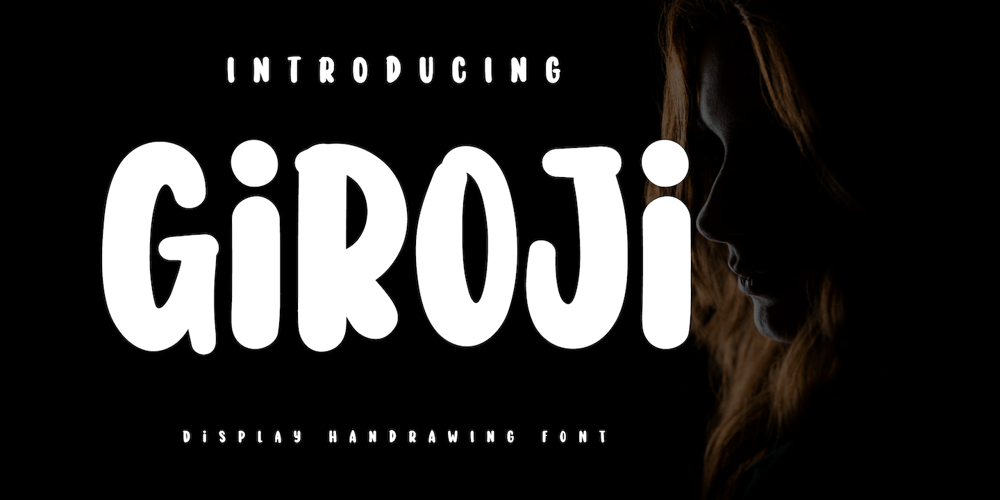
Giroji Font Family was designed by Rozikan and published by Twinletter. Giroji contains 1 styles and family package options. Introducing our newest font called Giroji, this font is designed with a bold, strong, and unique handwriting theme, so that when used it can create a relaxed, elegant and charming impression when applied to your design project so that it can give the viewer a distinctive impression.Start using this font to create an ideal and balanced design for each of your projects.In addition, this font is designed with a natural handwritten touch that is refined to create portions and compositions to suit your needs. So this font is perfect for crafts, children’s writing, adventure posters, food banner titles, wedding invitations, product packaging logos, quotes, social media page covers, furniture banner headlines, book covers, and much more.